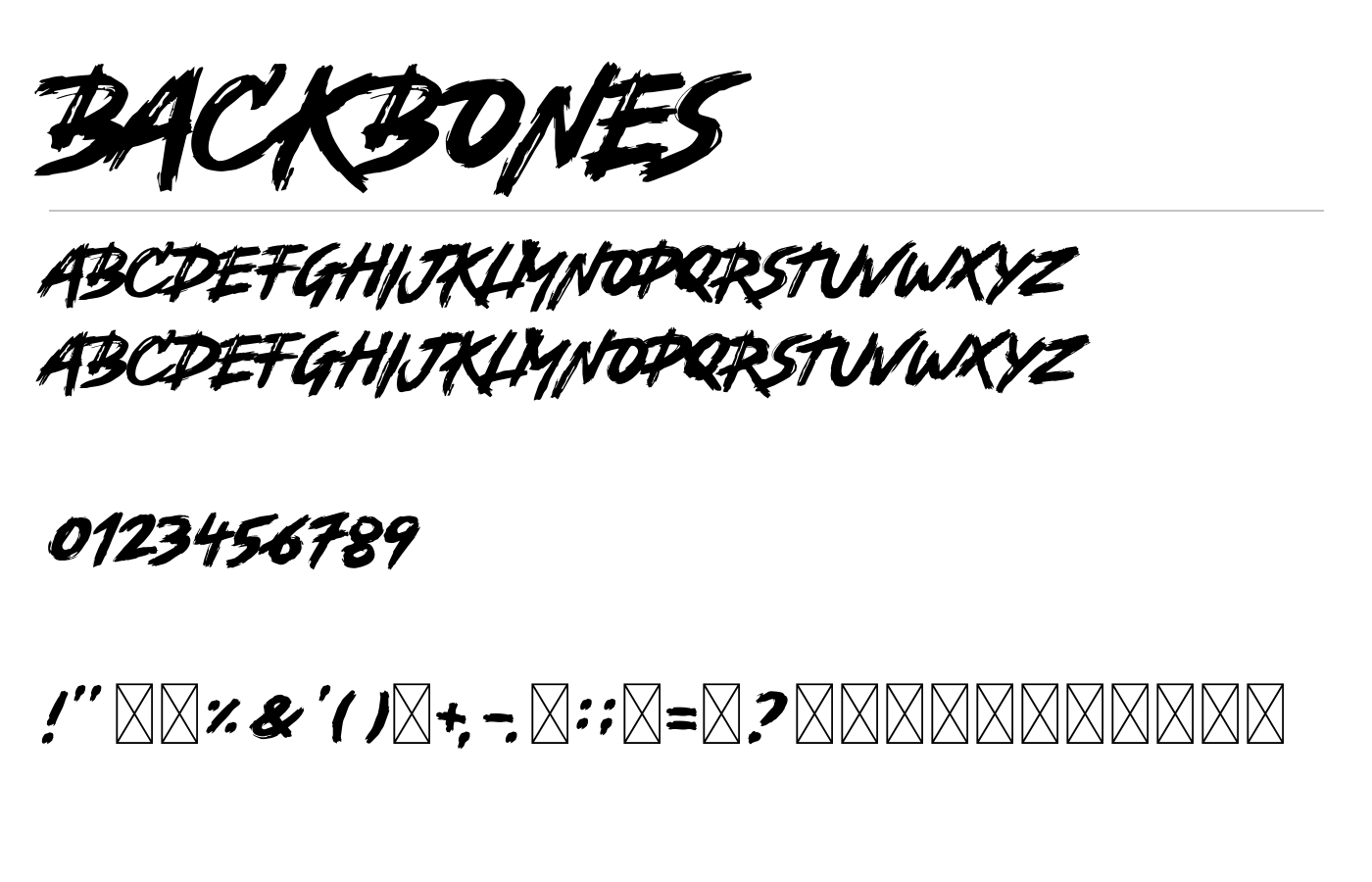
Backbones is a bold and dynamic brush-style font with a rough, textured appearance that conveys energy and movement. Its uppercase-only letterforms feature jagged edges and irregular strokes, making it ideal for striking headlines, posters, and creative branding that needs a raw, edgy vibe. This font works best in contexts where personality and impact are key, such as music promotions, sports graphics, or urban-themed designs.
Backbones Font
About Backbones Font